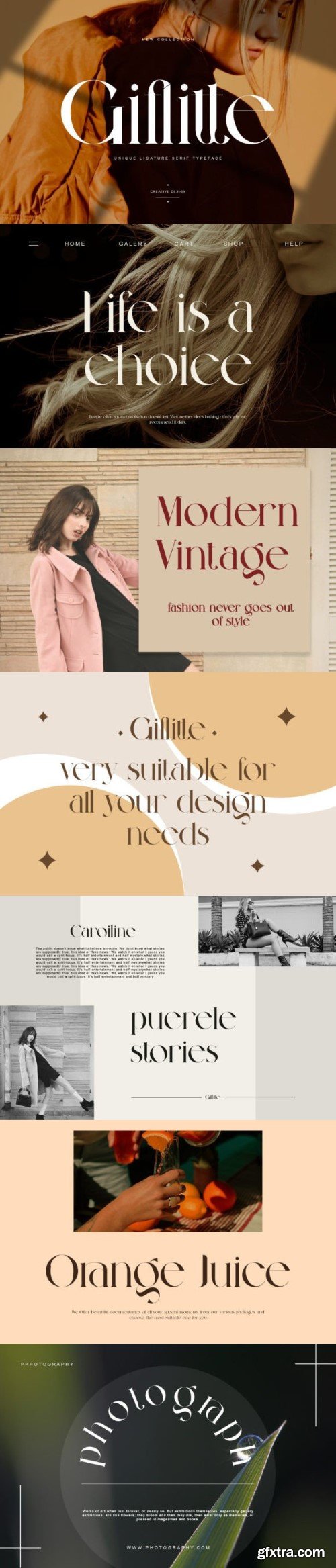
**Giflitte** Modern Sans Serif Typeface inspired by the famous minimalist logo perfect for design templates, brochures, videos, advertising branding, logos, invitations, layout design, elegant crafting, beauty design, and others.